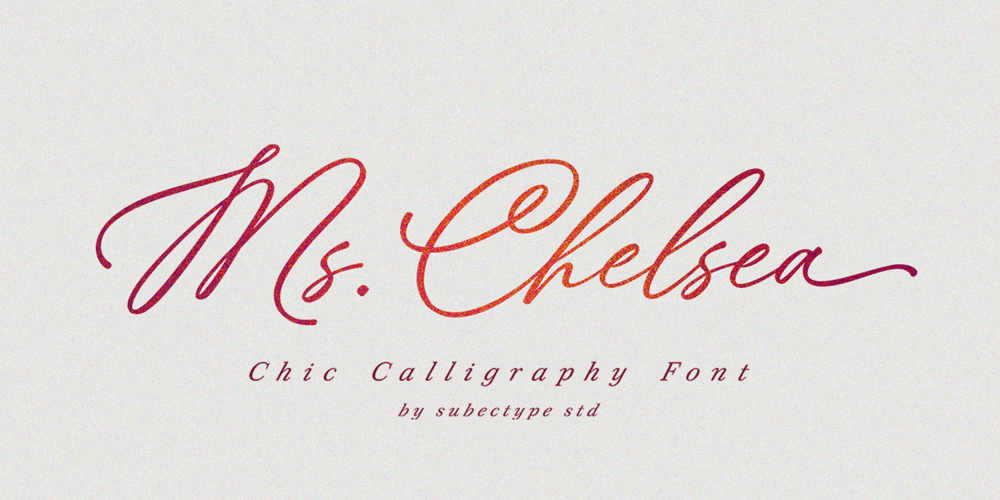
Ms. Chelsea Font Family was designed by Rangga Subekti and published by Subectype. Ms. Chelsea contains 1 styles and family package options. Ms. Chelsea is a Chic calligraphy font, described by an Love touch, perfect for Wedding invitation, Signature brand, and all of project with beautiful calligraphy font.Fall in love with its incredibly distinct and timeless style and use it to create spectacular